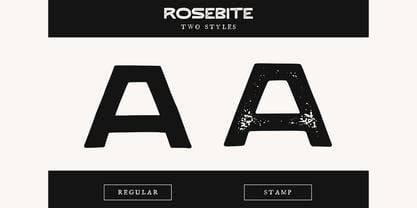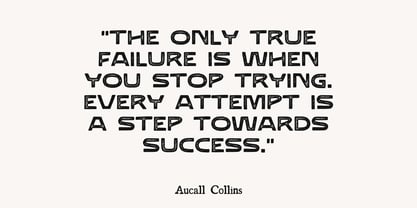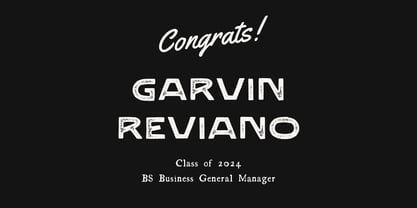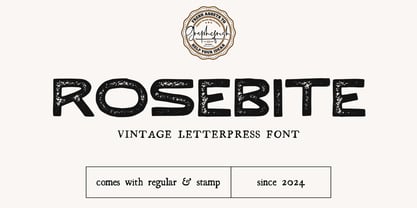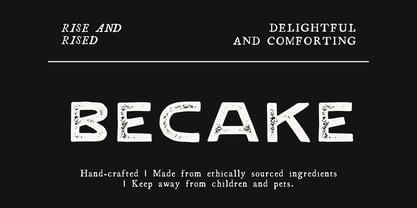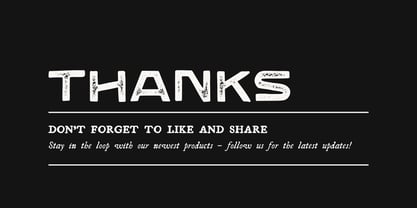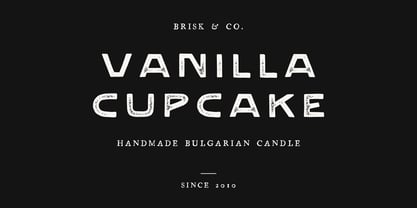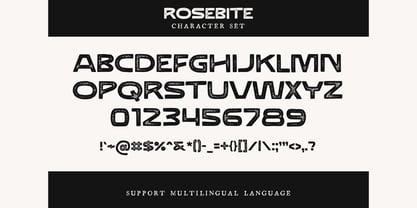
Rosebite
by Graphicfresh
The Rosebite Font Family was designed by Muhammad Husni Haikal and published by Graphicfresh. Rosebite contains 4 styles and family package options. More about this family
Introducing our Handcrafted Vintage Display Font, a unique typeface that brings the charm of hand-written styles and the classic feel of vintage letterpress design. This font is perfect for projects that need a touch of personalization and a dash of old-world elegance. Ideal for branding, poster design, and creative headers, it adds a distinctive character to every word. Its carefully crafted letters ensure readability while maintaining an artistic flair, making it a great choice for both digital and print mediums.
Designers: Muhammad Husni Haikal
Foundry: Graphicfresh